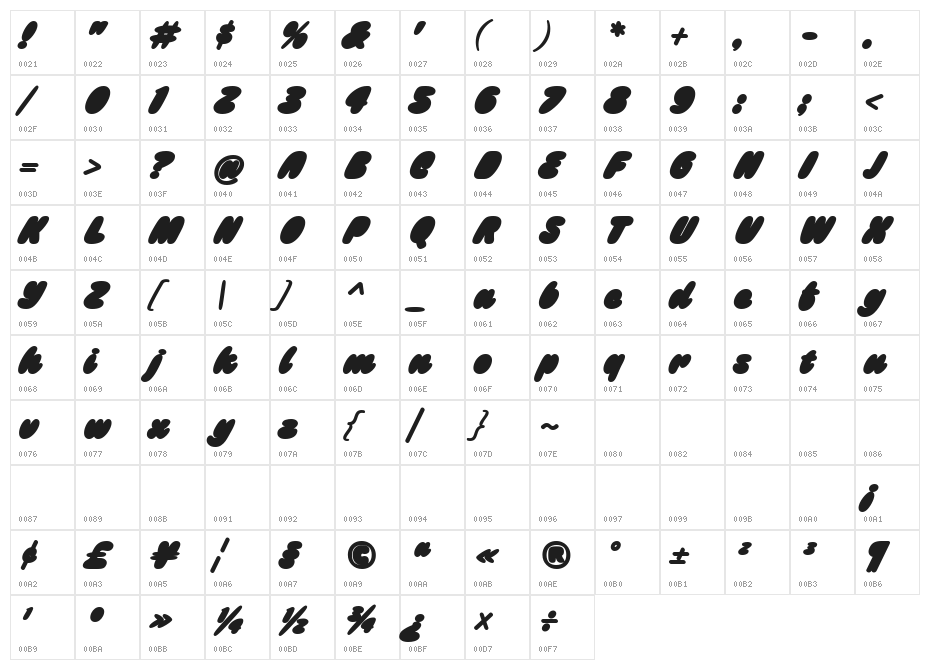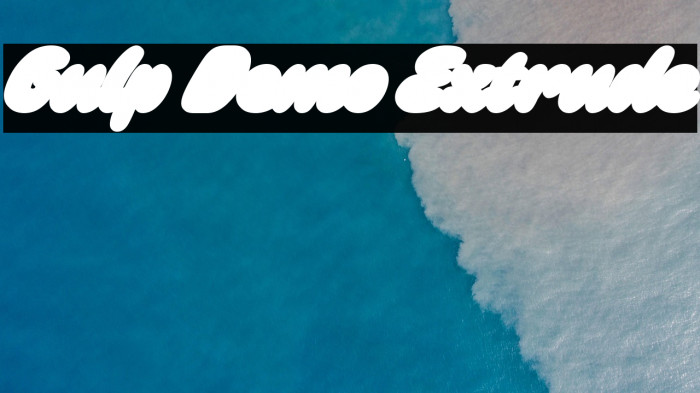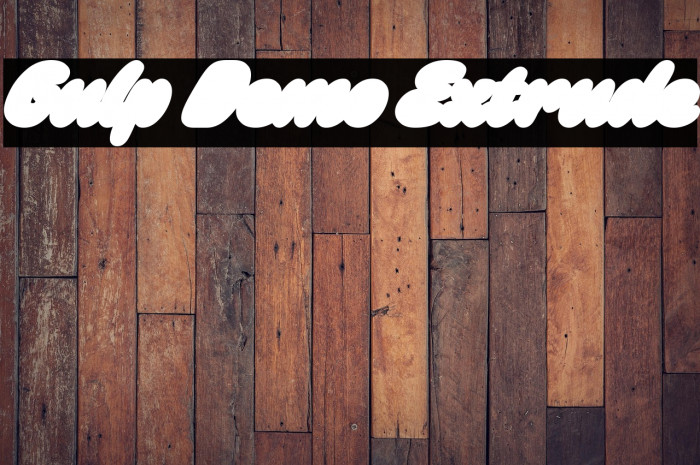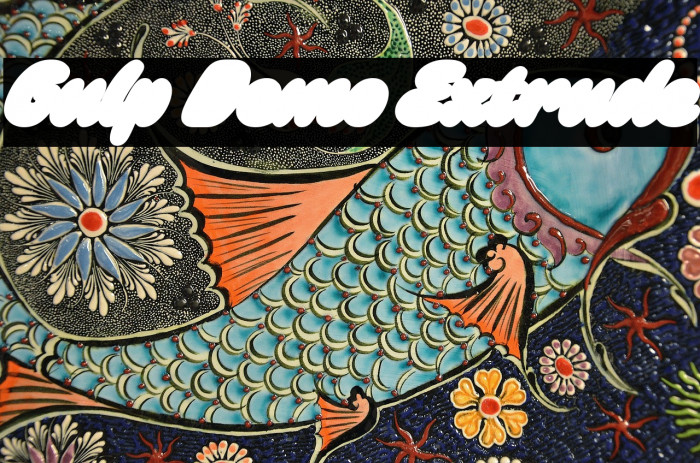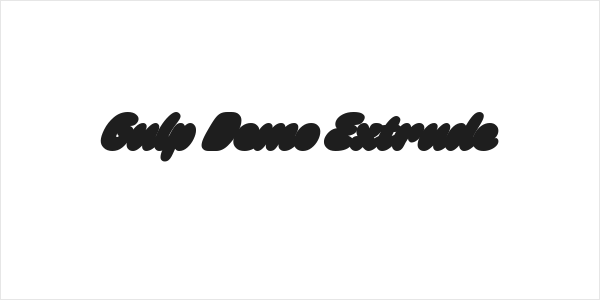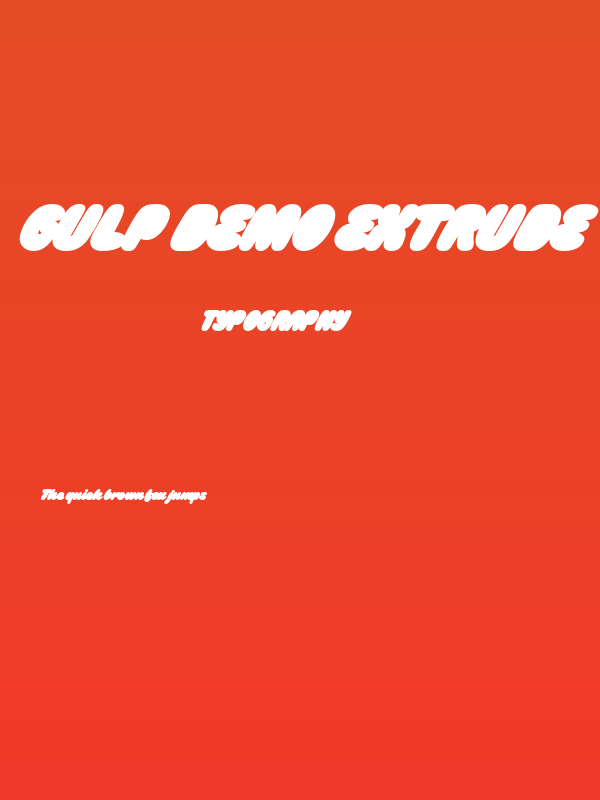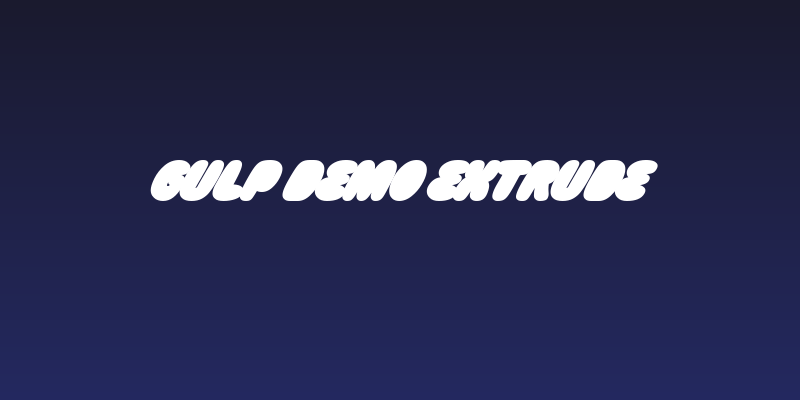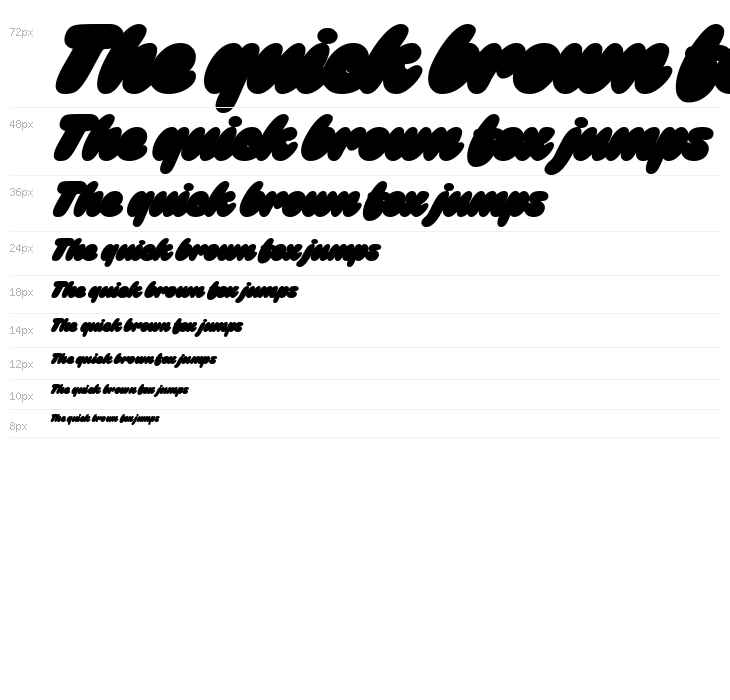
Gulp Demo Extrude Font
Gulp Demo Extrude Description
This font features a bold and playful design with a strong emphasis on rounded, bubble-like forms. The characters are heavily weighted, creating a sense of depth and volume. The style is reminiscent of retro and pop art aesthetics, with a fun and energetic vibe. The uppercase and lowercase letters maintain a consistent flow, while the numbers and special characters complement the overall design with their rounded edges and bold presence. This font is ideal for projects that require a lively and eye-catching typeface.
| Overall Style | Retro, Playful |
| Proposed Projects | Ideal for posters, children's books, playful branding, and retro-themed designs. |